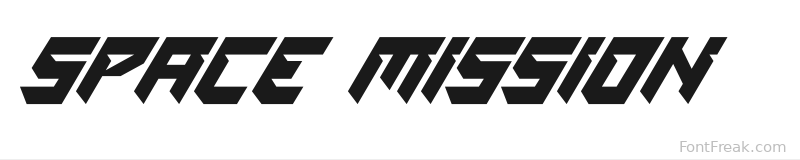
SPACE MISSION
The SPACE MISSION font by MaknaStudio is a striking display typeface that captures the essence of adventure and exploration. Released in 2021, this freeware font is designed with a bold, geometric style that resonates with themes of space and futuristic missions. The font features a unique combination of sharp angles and dynamic lines, giving it a sense of motion and energy. The stroke weight varies throughout, creating an engaging visual contrast that enhances its bold character. The spacing between letters is well-balanced, allowing for easy readability while maintaining an impressive aesthetic.
SPACE MISSION is perfect for a variety of creative projects. Its adventurous vibe makes it an excellent choice for movie posters, especially those within the sci-fi genre. Additionally, the font can elevate the branding of tech startups or space-themed events, making it highly suitable for promotional materials and social media graphics. Graphic designers will find this font particularly useful for creating eye-catching logos, while content creators can leverage its unique style in digital content, such as podcasts or YouTube channels focused on technology and exploration.
Targeted at graphic designers, small business owners, and content creators, SPACE MISSION offers a way to infuse excitement and modernity into any project. Its distinctive design ensures that projects stand out in a crowded marketplace, catching the eye of potential customers and clients alike.
What truly makes the SPACE MISSION font remarkable is its ability to evoke a sense of adventure while remaining versatile across various applications. The combination of its futuristic aesthetic and practical usability makes SPACE MISSION font free download an appealing option for anyone looking to enhance their creative work. Embrace the spirit of exploration with this captivating typeface.